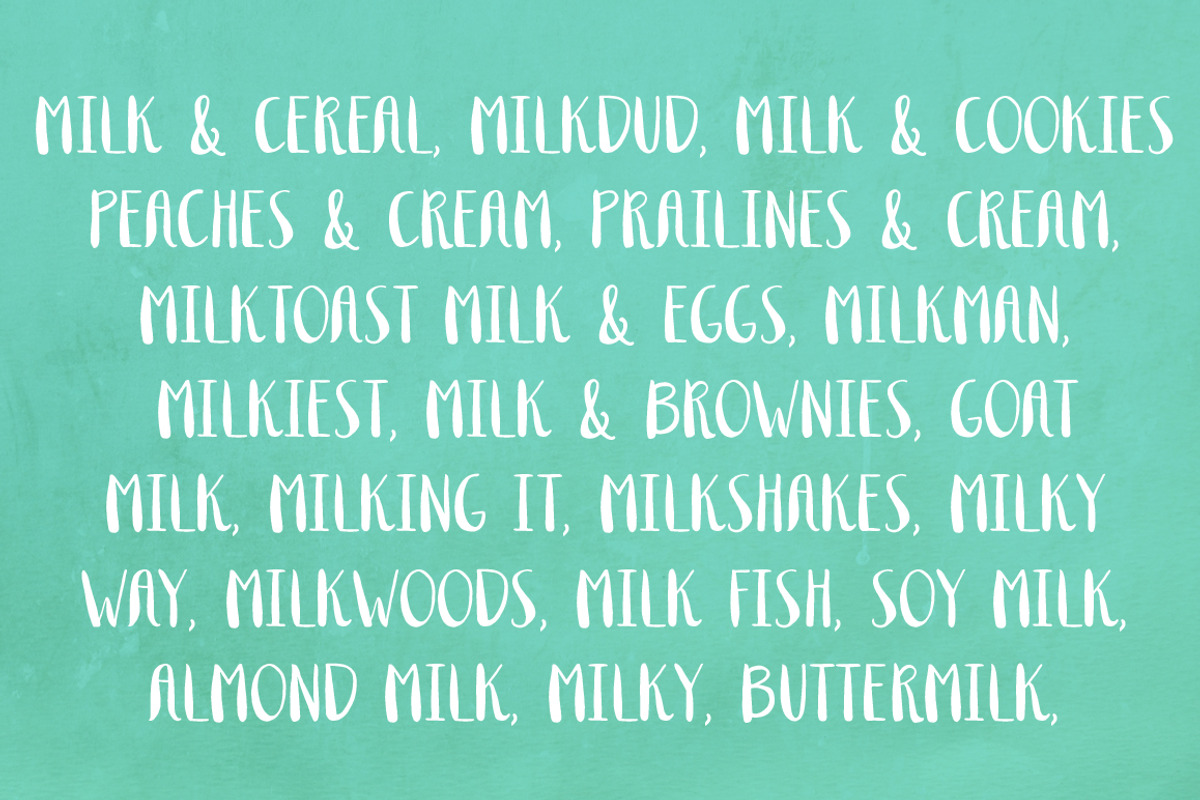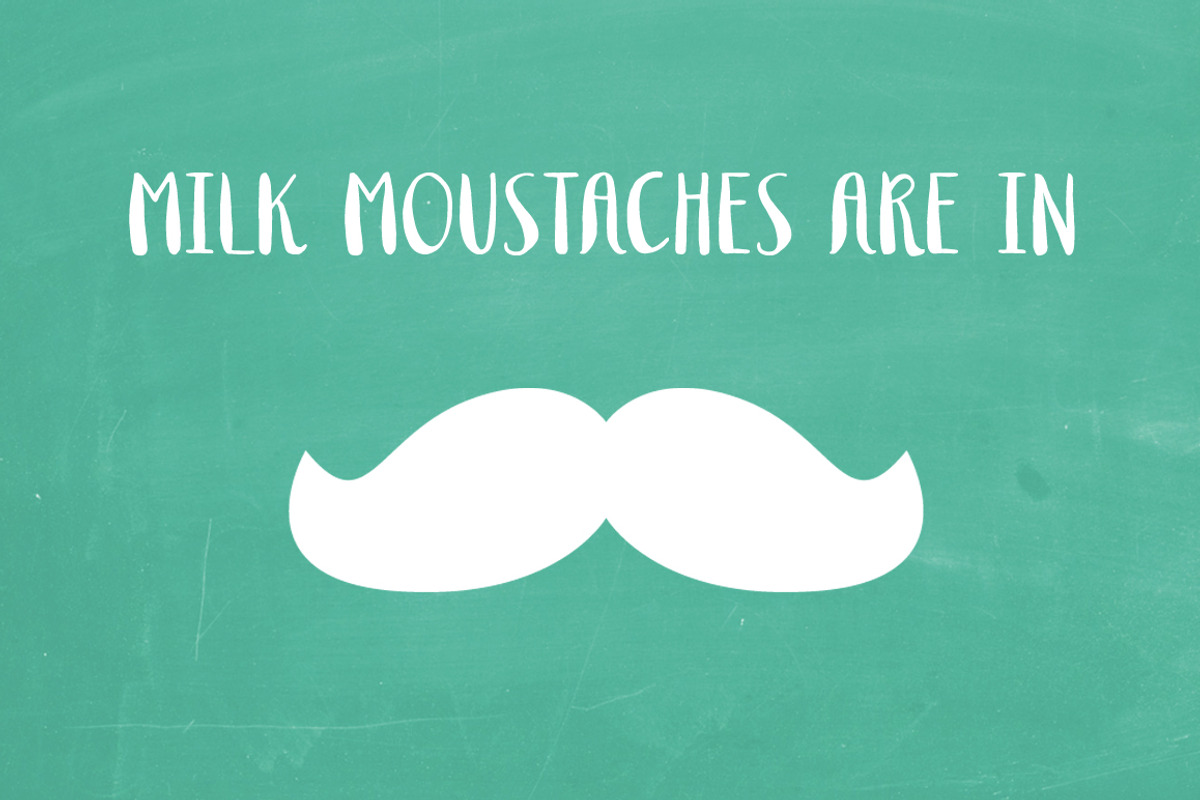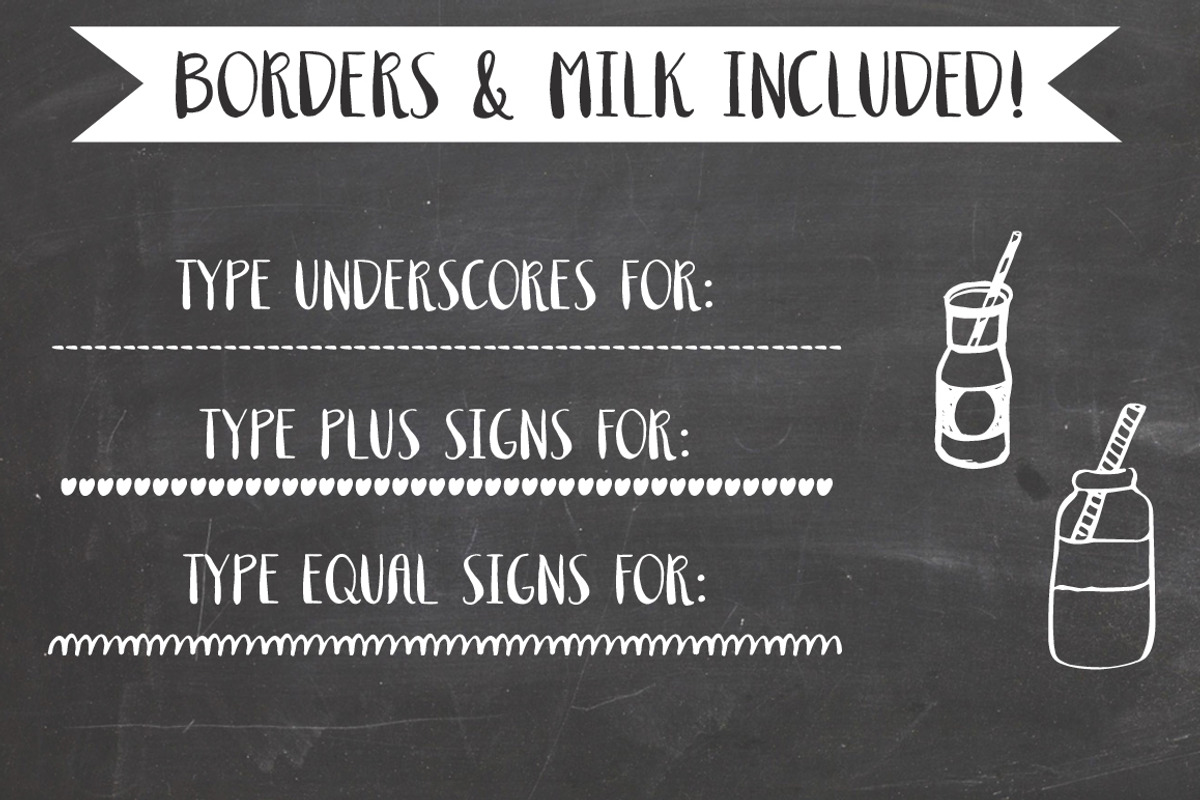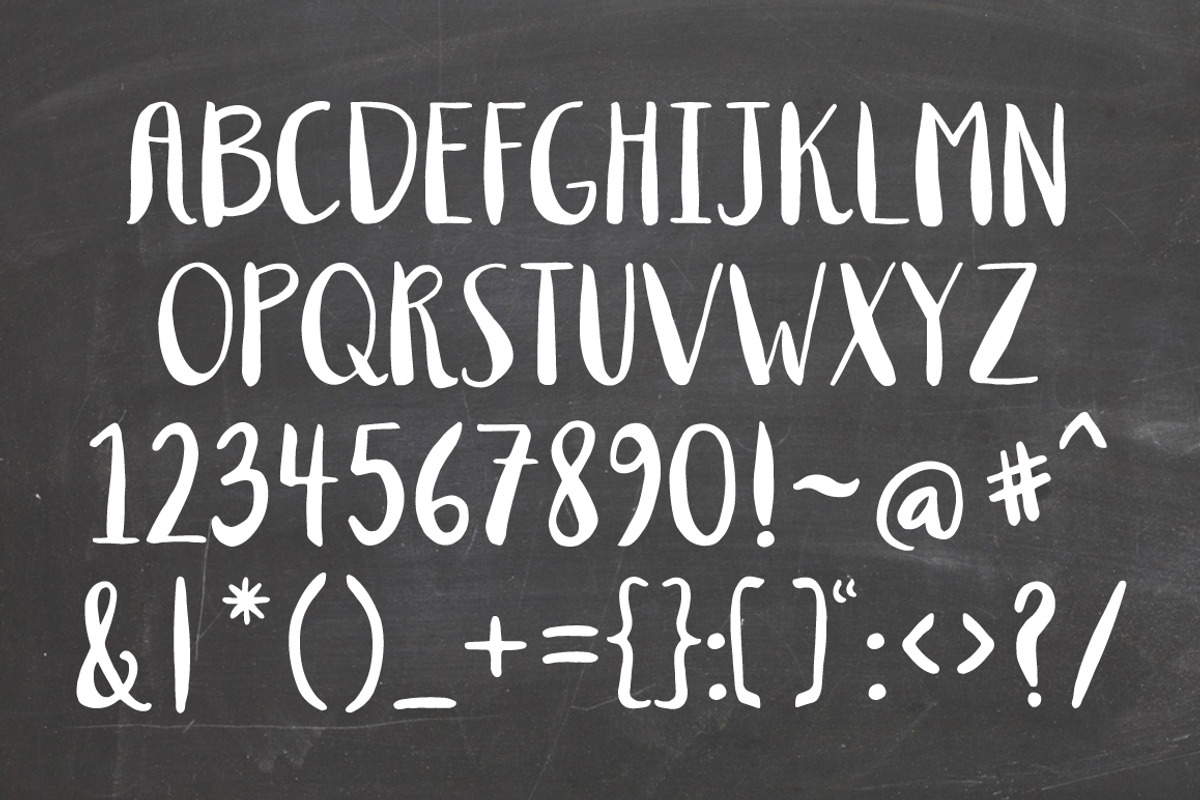
Milkmaid - A Smooth Uppercase Font
Milkmaid - A Smooth Uppercase Font by Angie Makes is a font selected for branding, posters, packaging, typography.
- This font was hand-painted and includes three borders, milk doodles, and of course the standard Latin characters and diacritics.
- Introducing Milkmaid, an uppercase font that does a body good.
Why Milkmaid - A Smooth Uppercase Font is worth a look
Milkmaid - A Smooth Uppercase Font by Angie Makes fits naturally into Branding, posters, packaging, typography.